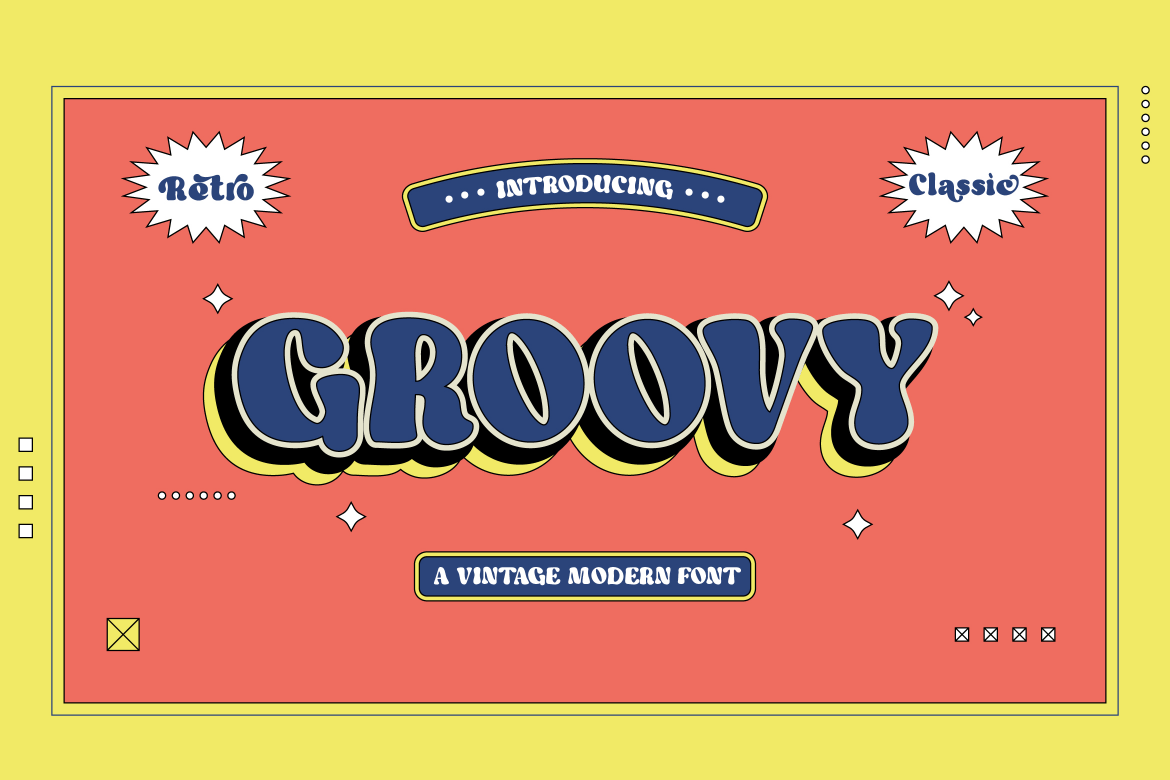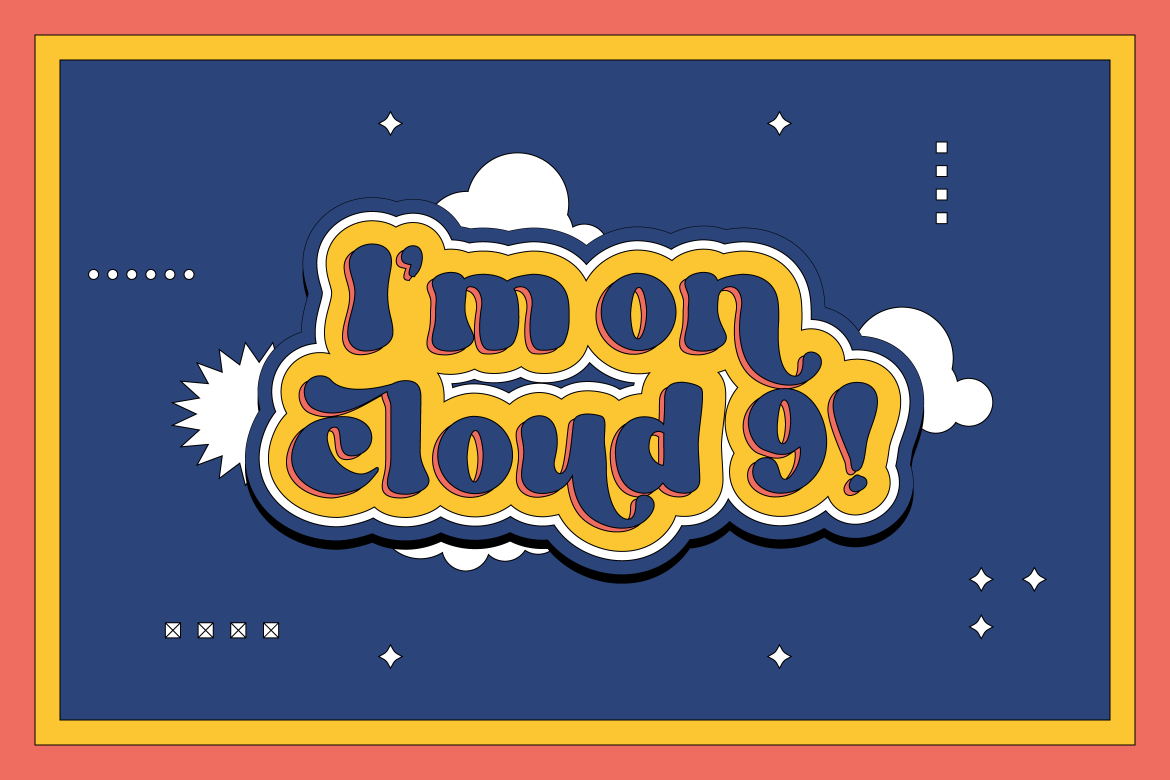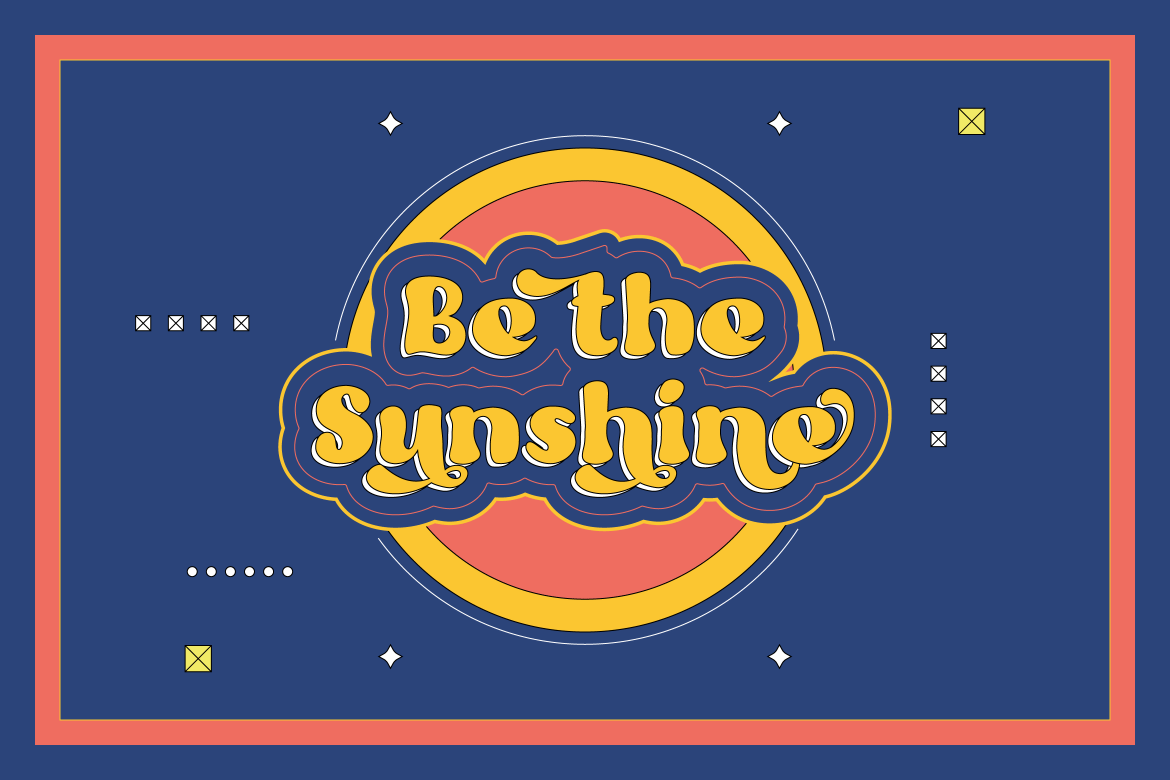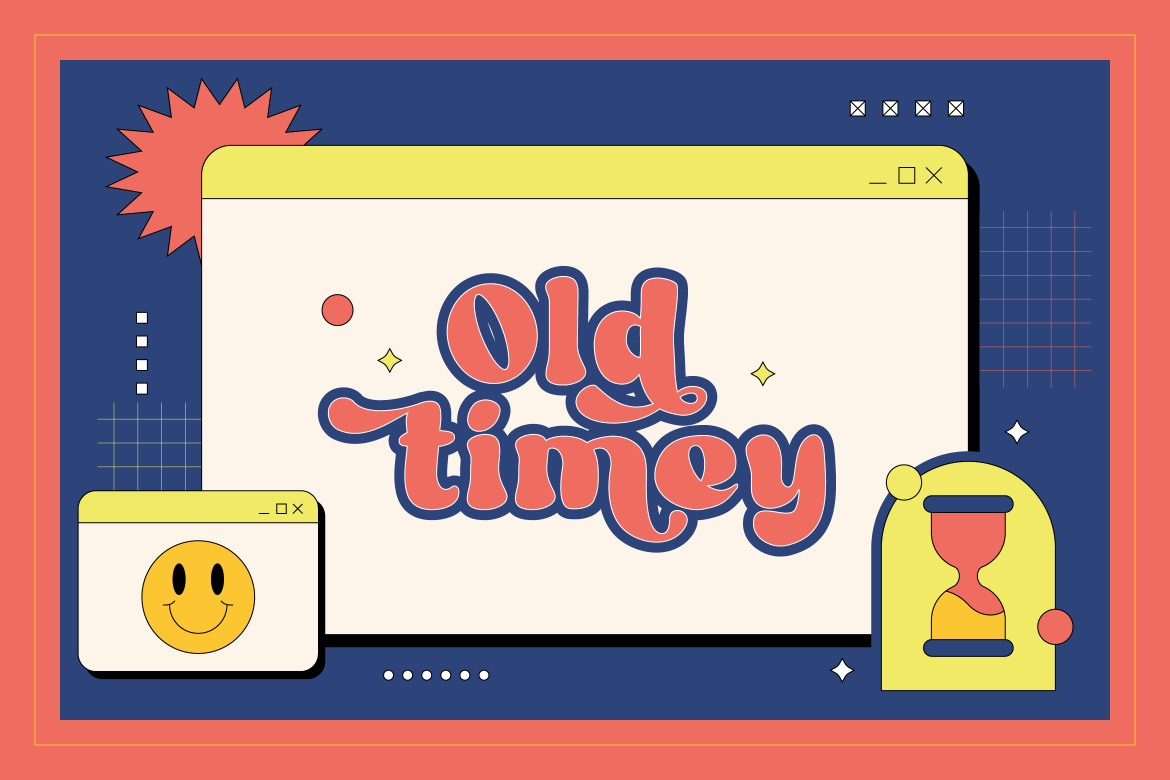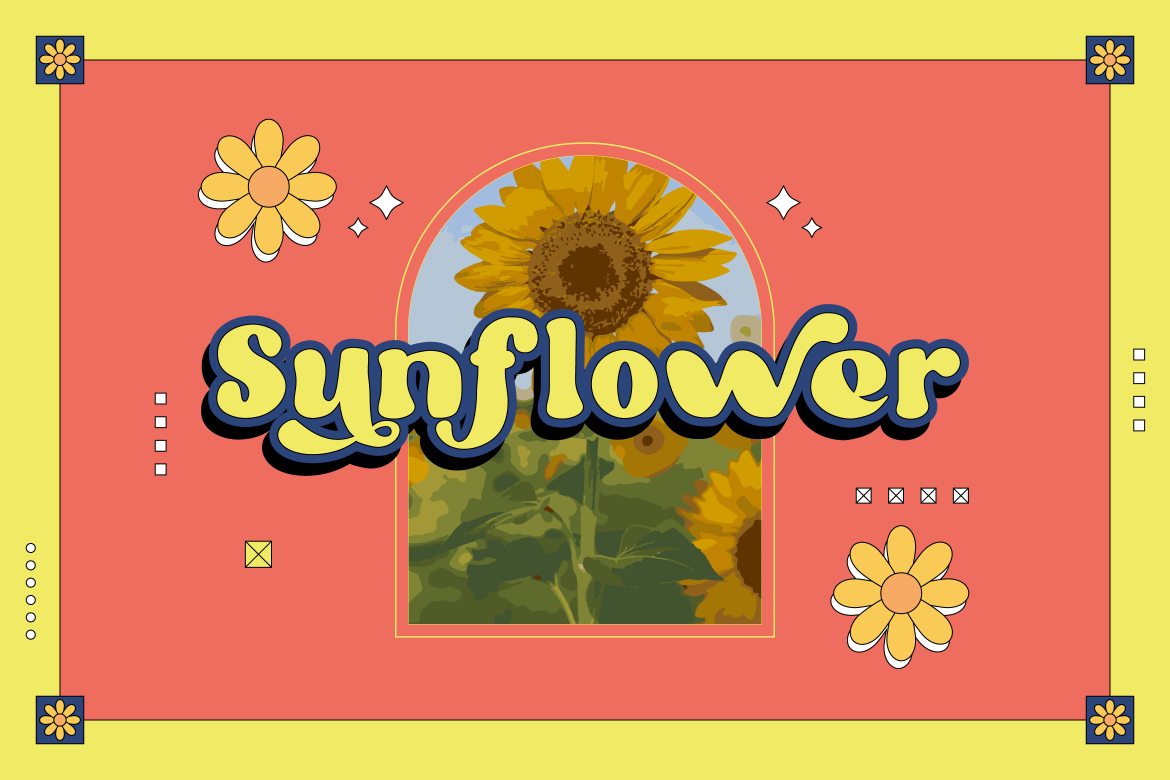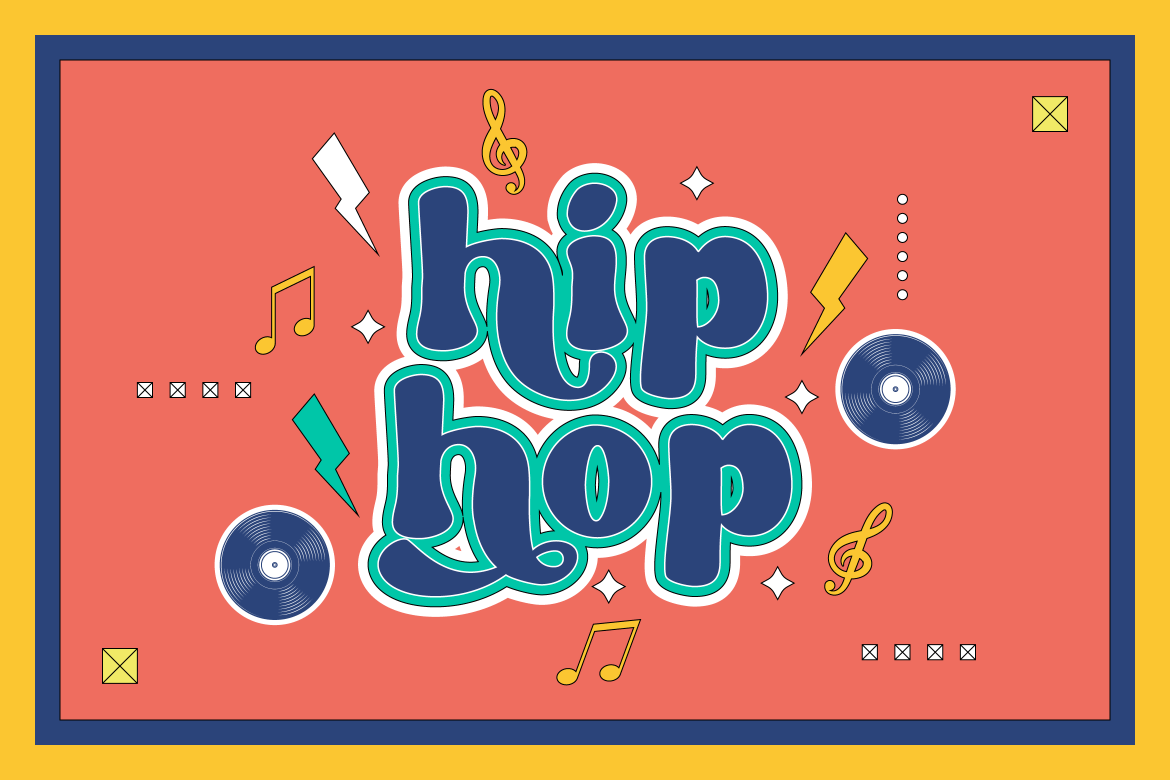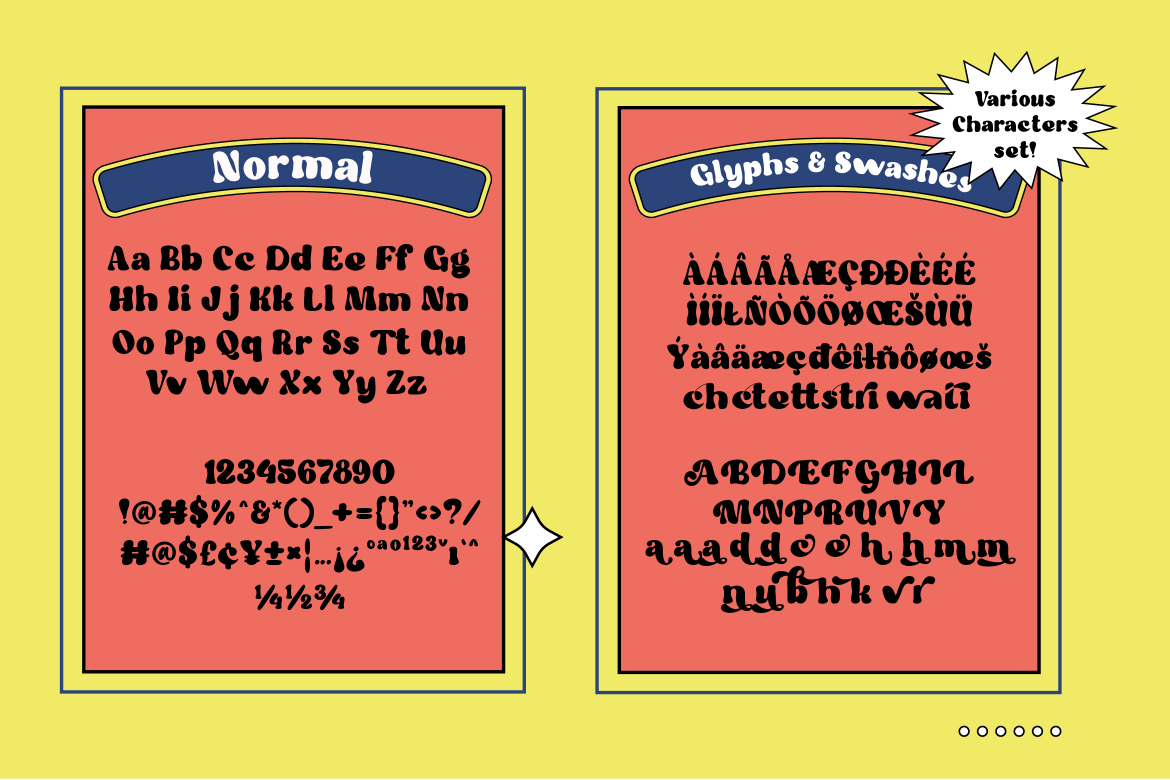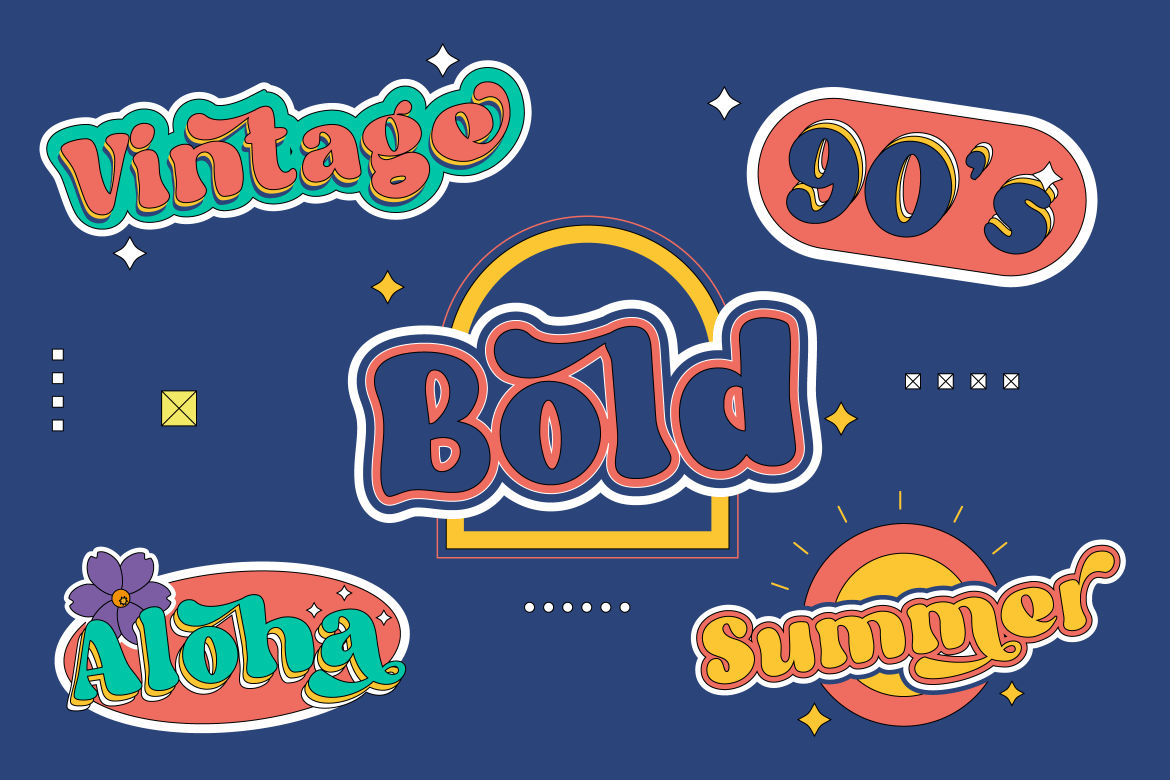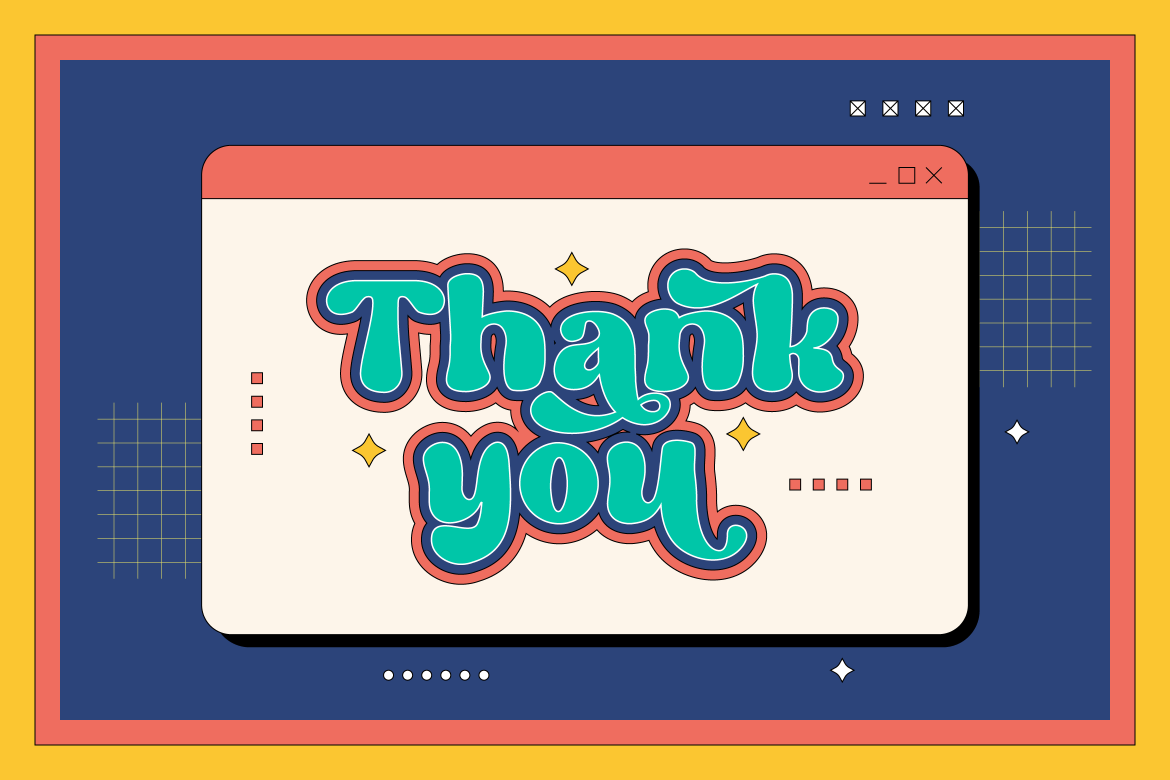
Vintage Modern Font
Want to give your design a vintage look that still speaks to modern audiences today? Choosing the right font can do the trick.
Introducing Groovy – A Vintage Modern Font.
- Multilingual & Ligature Support
- Full sets of Punctuation and Numerals